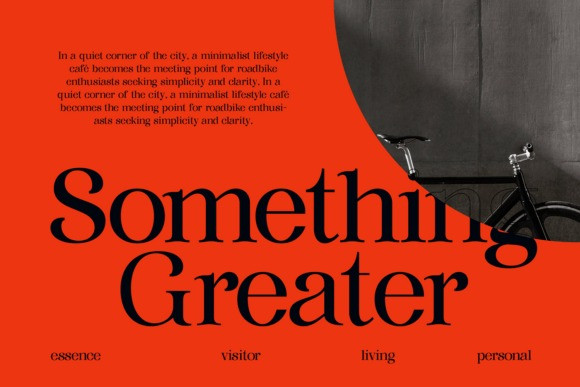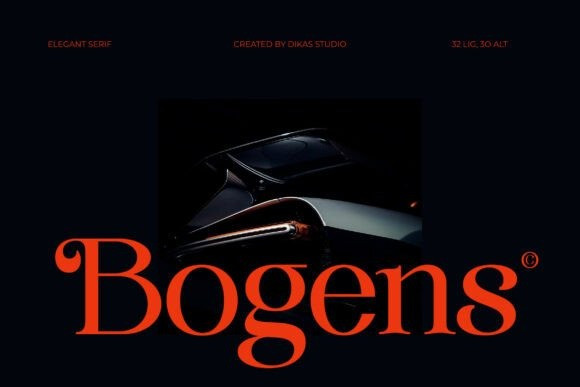
Bogens Font
Bogens Font is an elegant serif font with a touch of vintage style.It includes smooth, flowing alternate characters that add a unique look to your design. Bogens is perfect for logotypes, posters, titles, and any project that needs standout typography.The font comes in two styles: Regular and Rough, giving you clean or textured options for your creative needs.
This luxury typeface is defined by its deep contrast, robust weight, and uniquely curved serifs that give it a sophisticated, almost decorative display quality. The Bogens font is highly versatile, supported by an impressive suite of 32 ligatures and 30 stylistic alternates for maximum customization and refined typography.
Use the Bogens serif typeface to elevate high-end branding, fashion editorials, upscale product packaging, and sophisticated advertising campaigns. The bold, luxurious presence of the Bogens font ensures every design carries an air of exclusive prestige and artistic confidence.